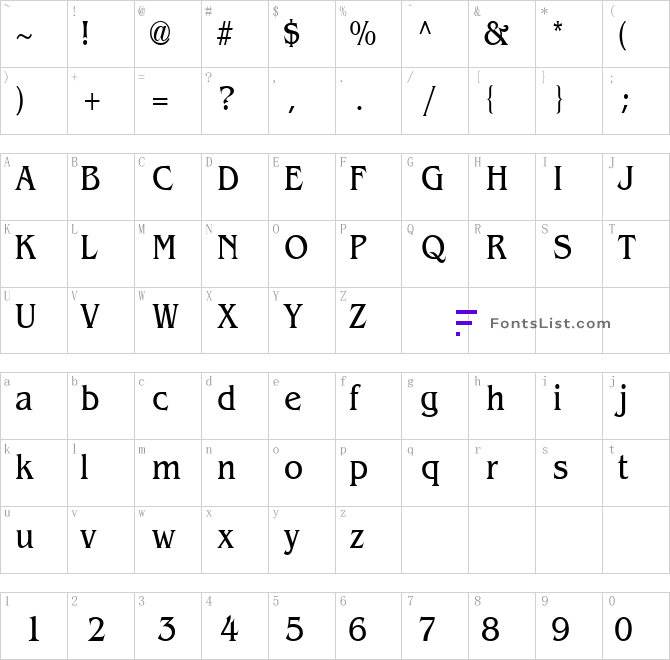
- Font Name:Bangle-Condensed
Bangle-Condensed-Normal1-.ttf is a very beautiful artistic font, Bangle-Condensed-Normal1-.ttf is widely used in the design and printing of various books and pictures,Bangle-Condensed-Normal1-.ttf has a strong visual impact,Bangle-Condensed-Normal1-.ttf is a commonly used font in newspapers, magazines and books, and is used in posters, e-commerce Poster design, store design, logo design, font design and other fields.Bangle-Condensed-Normal1-.